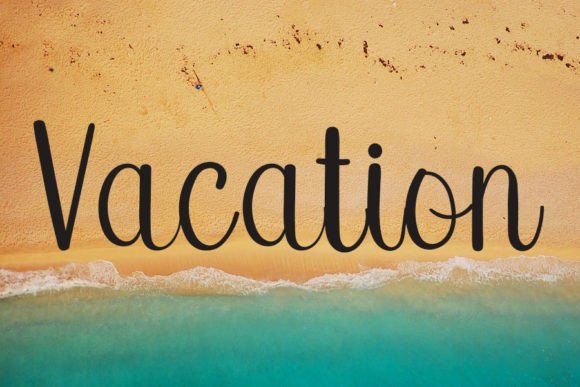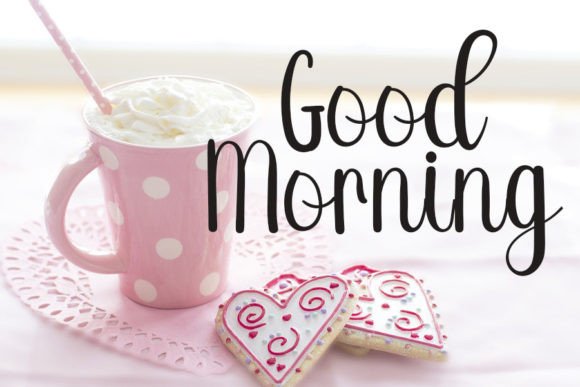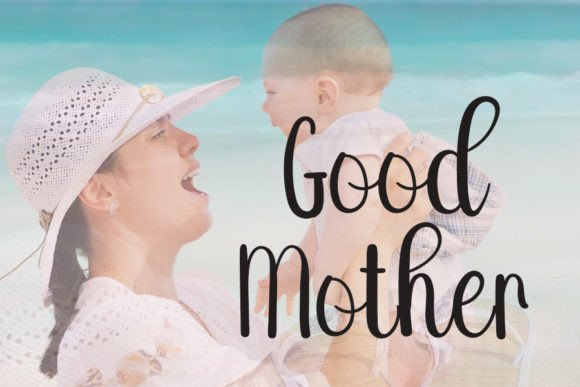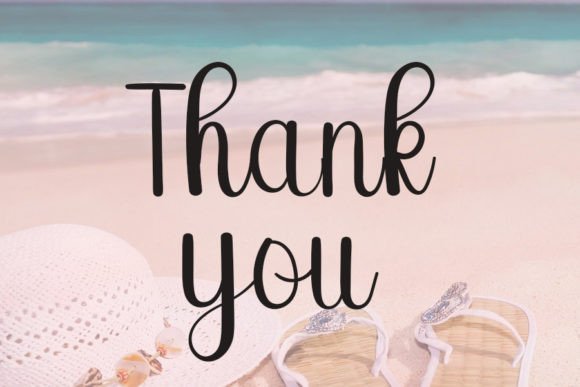
Happy Saturday Font: Elevate Your Designs with Elegance and Charm
Are you a designer or crafter looking for the perfect font to add a touch of elegance and charm to your projects? Look no further than the Happy Saturday font. This beautiful, handwritten font is perfect for a variety of designs, from wedding invitations and thank you cards to quotes, greeting cards, logos, business cards, and more.
The Characteristics of Happy Saturday Font
Happy Saturday font is a stunning example of a handwritten font that exudes elegance and sophistication. Its flowing script and delicate lines make it perfect for designs that require a personal touch. The font is highly legible, making it easy to read and understand, even at small sizes.
One of the standout features of Happy Saturday font is its versatility. It can be used for a wide range of designs, from formal wedding invitations to casual greeting cards. The font is also highly adaptable, making it suitable for use in various digital and print formats.
Why Choose Happy Saturday Font?
So, why choose Happy Saturday font for your designs? Here are just a few reasons:
- Elegance and charm: Happy Saturday font adds a touch of elegance and charm to any design, making it perfect for special occasions and formal events.
- Versatility: The font can be used for a wide range of designs, from wedding invitations and greeting cards to logos and business cards.
- Legibility: Happy Saturday font is highly legible, making it easy to read and understand, even at small sizes.
- Handwritten touch: The font’s handwritten style adds a personal touch to designs, making them stand out from the crowd.
How to Use Happy Saturday Font in Your Designs
Using Happy Saturday font in your designs is easy. Here are a few tips to get you started:
- Pair it with other fonts: Happy Saturday font pairs well with other fonts, such as sans-serif fonts, to create a striking contrast.
- Use it for headings and titles: The font’s elegant style makes it perfect for headings and titles, adding a touch of sophistication to your designs.
- Add embellishments: Consider adding embellishments, such as flourishes or swashes, to give your designs an extra touch of elegance.
Perfect for Wedding and Party Designs
Happy Saturday font is particularly well-suited for wedding and party designs. Its elegant style and charming charm make it perfect for:
- Wedding invitations: Add a touch of elegance to your wedding invitations with Happy Saturday font.
- Thank you cards: Express your gratitude in style with Happy Saturday font.
- Party invitations: Create eye-catching party invitations with Happy Saturday font.
Here are a few tips for designers and crafters looking to get the most out of Happy Saturday font:
- Experiment with different sizes: Try using Happy Saturday font in different sizes to create visual interest and hierarchy in your designs.
- Play with color: Experiment with different colors to find the perfect match for your design.
- Don’t be afraid to get creative: Happy Saturday font is a versatile font that can be used in a variety of creative ways, so don’t be afraid to experiment and try new things.
In conclusion, Happy Saturday font is a beautiful, elegant, and charming font that is perfect for designers and crafters looking to add a personal touch to their projects. Its versatility, legibility, and handwritten style make it suitable for a wide range of designs, from wedding invitations and greeting cards to logos and business cards. So why not give Happy Saturday font a try and see the difference it can make in your designs?